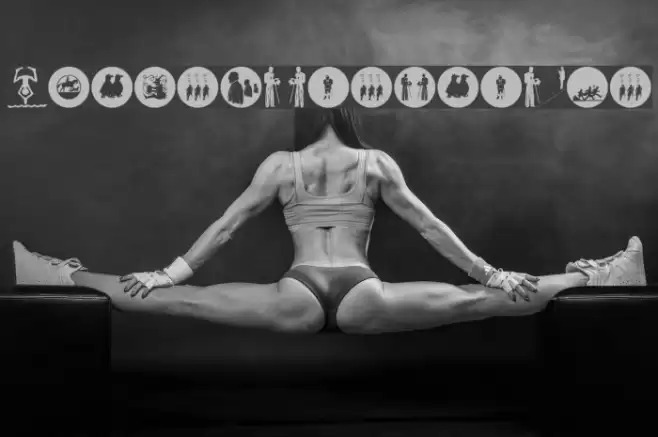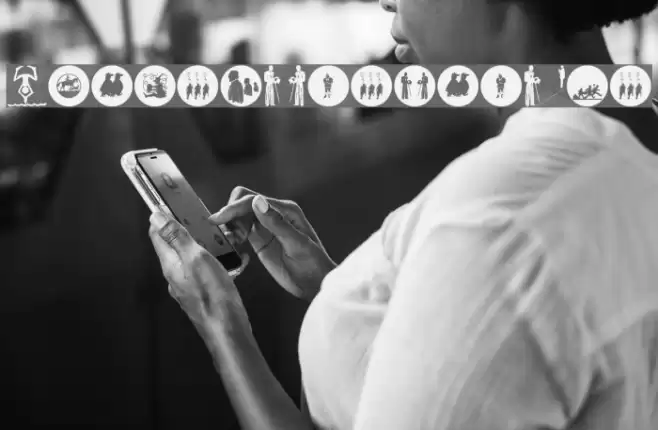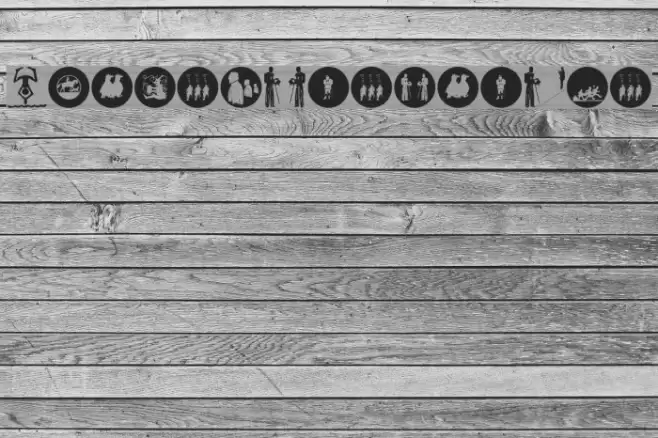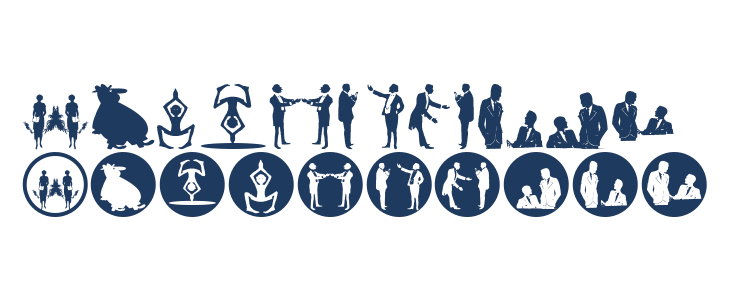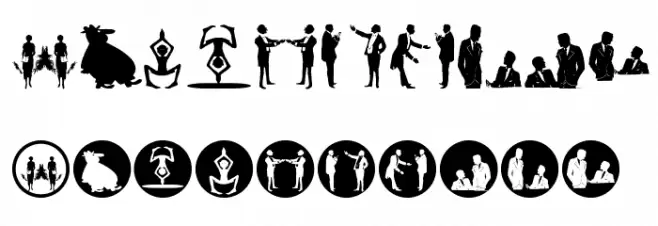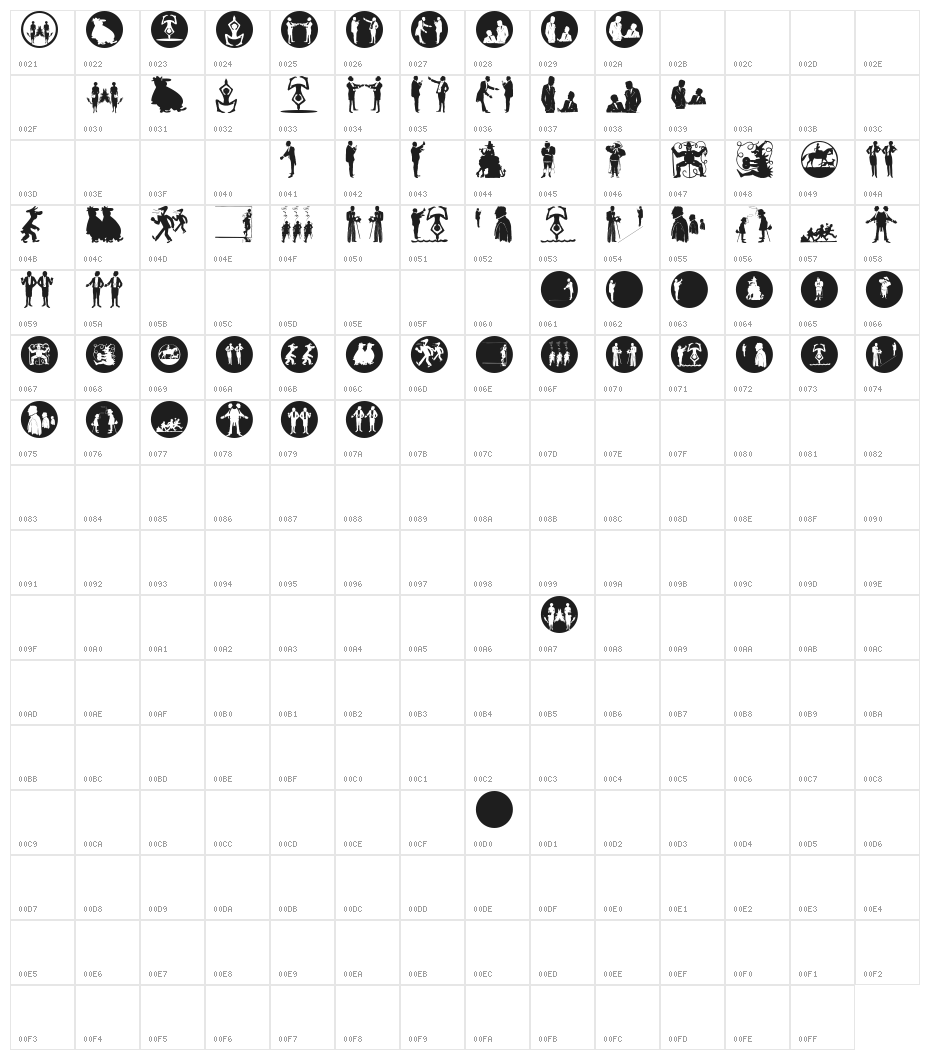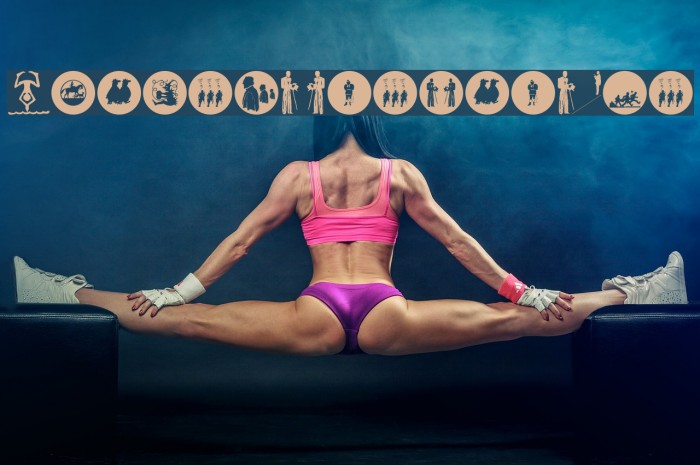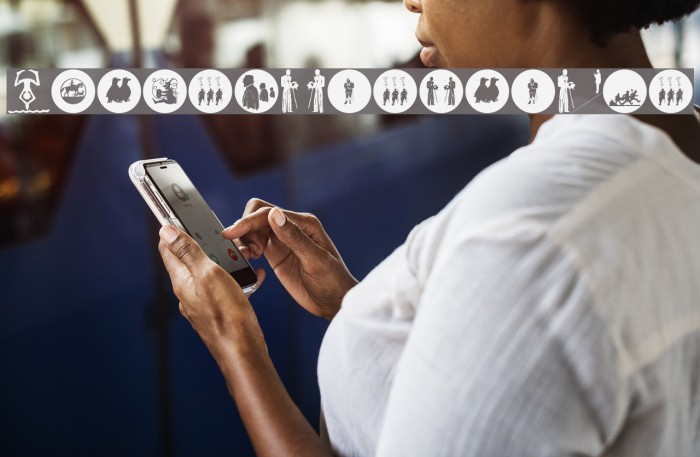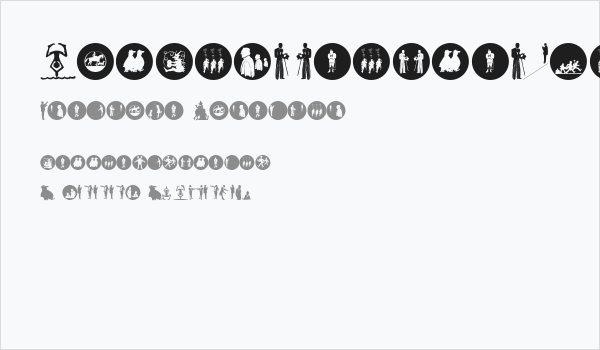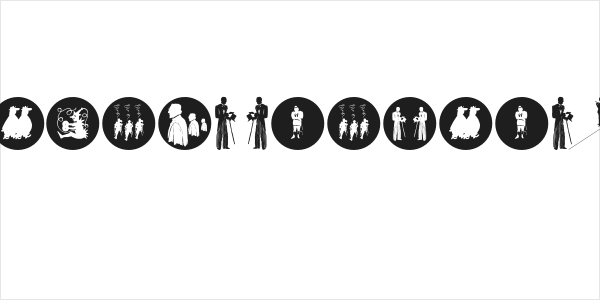
SilhouPeopleTwo Font
SilhouPeopleTwo Description
A decorative display font composed of stylized human silhouettes and group scenes, each glyph representing a unique figure or interaction, often within a circular or standalone silhouette. The forms are bold, high-contrast, and highly illustrative, prioritizing visual storytelling over traditional letterforms.
- Overall Style: Decorative, Illustrative, Playful